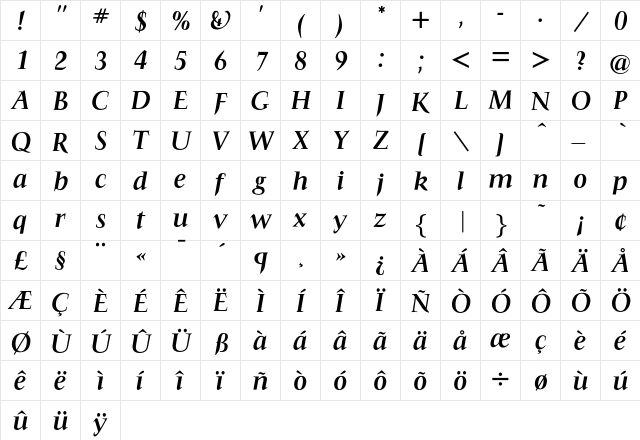
FrancoisBoldItalic Regular
Design Context for FrancoisBoldItalic Typeface
FrancoisBoldItalic offers clean, dependable letterforms without strong stylistic allegiance, making it a practical choice for designers who need flexibility. The slanted form adds forward momentum and visual energy. The heavy weight commands attention and anchors typographic hierarchies.
Pro Tip: Use FrancoisBoldItalic for emphasis, pull quotes, and subheadings where its slanted energy can add rhythm to the layout.